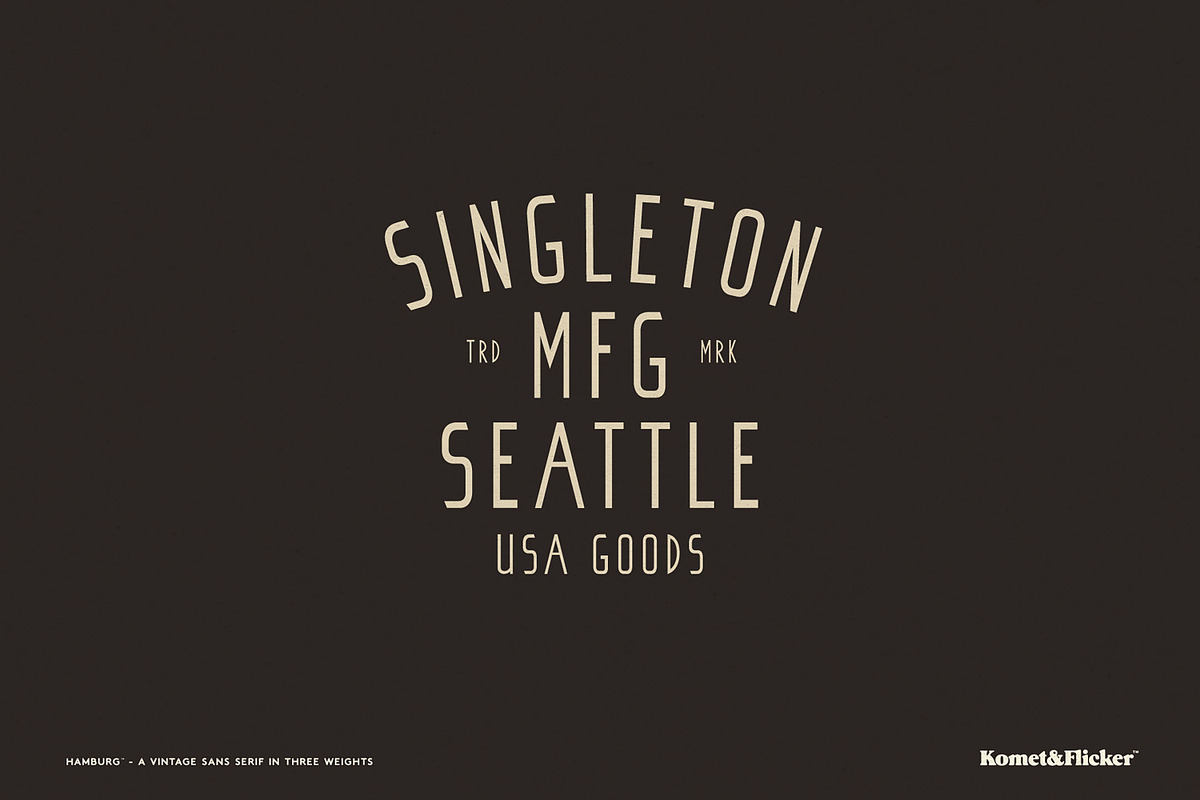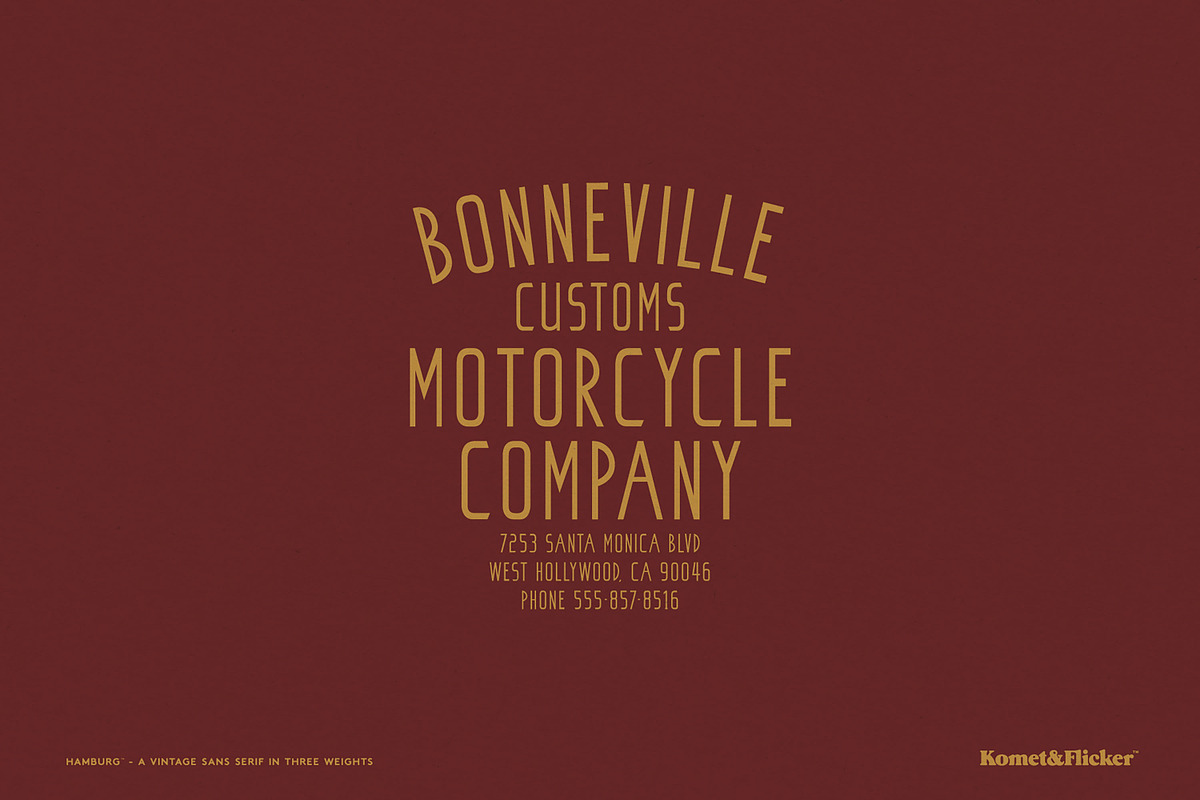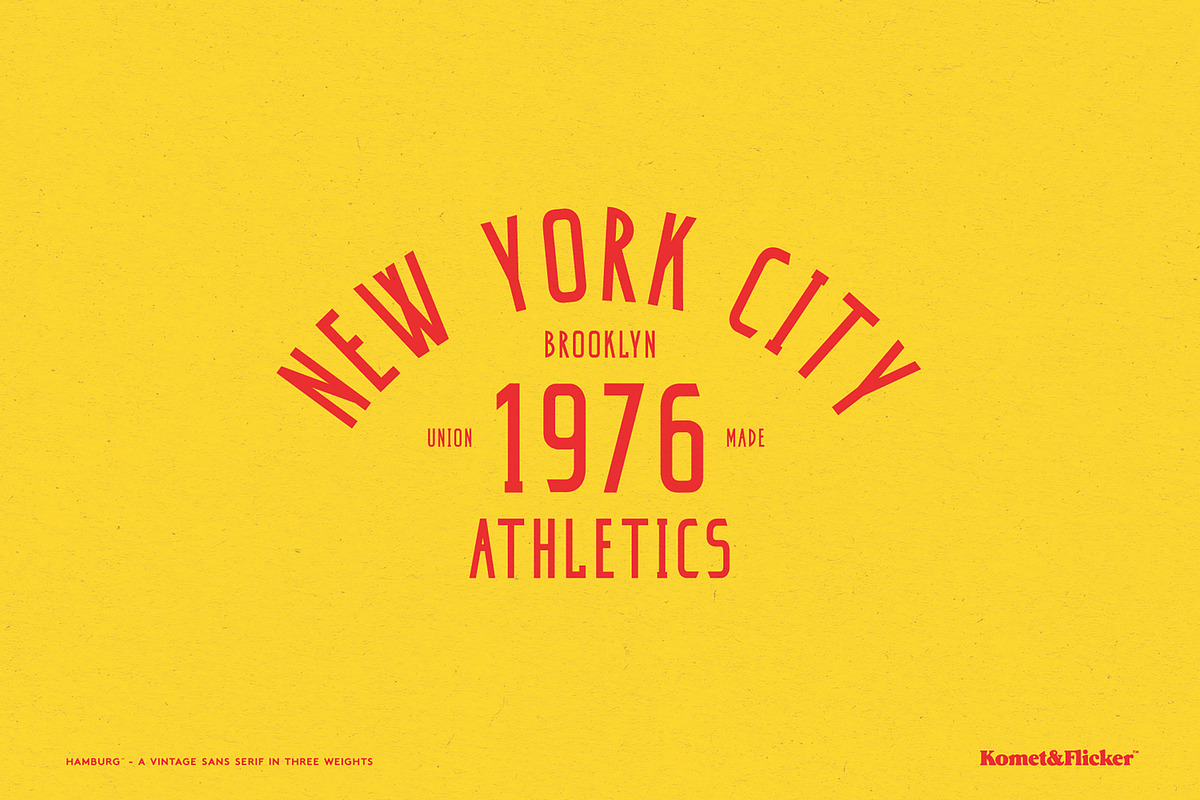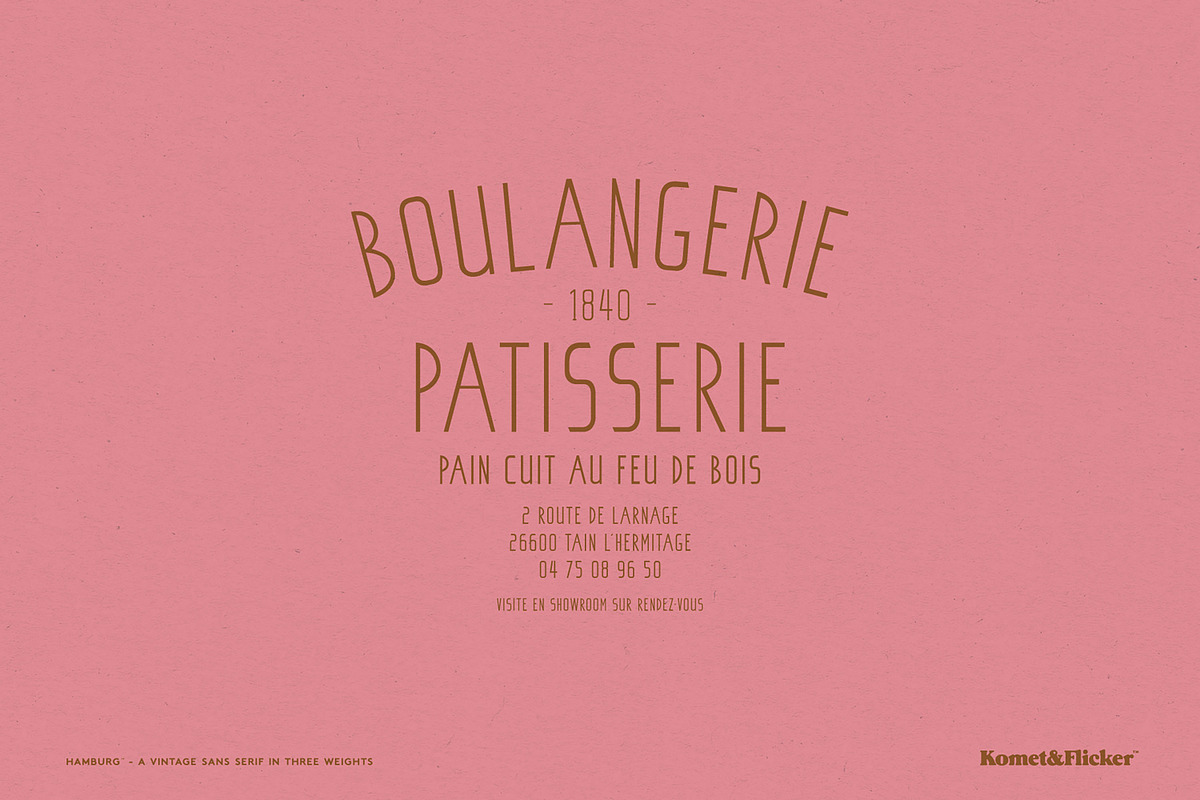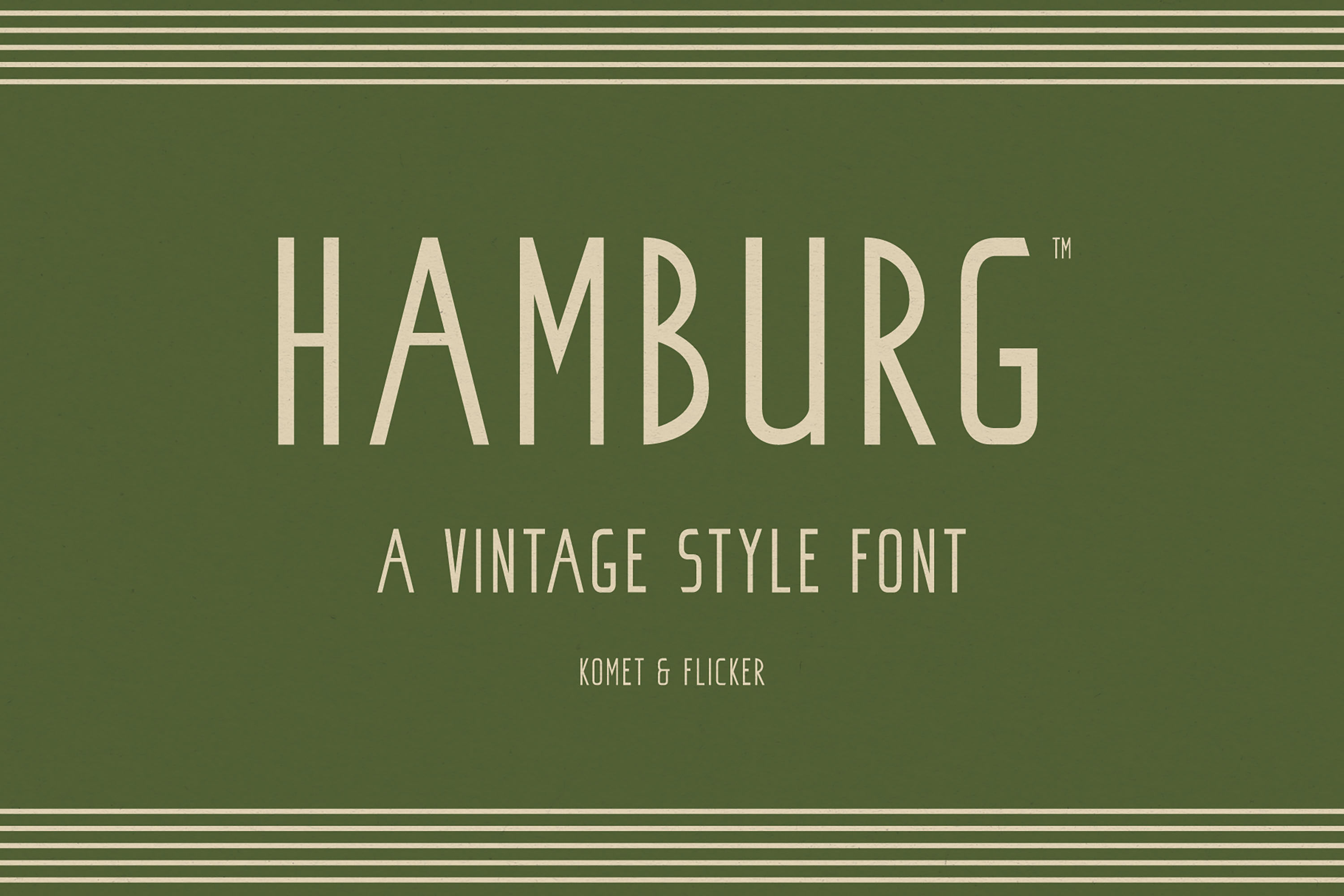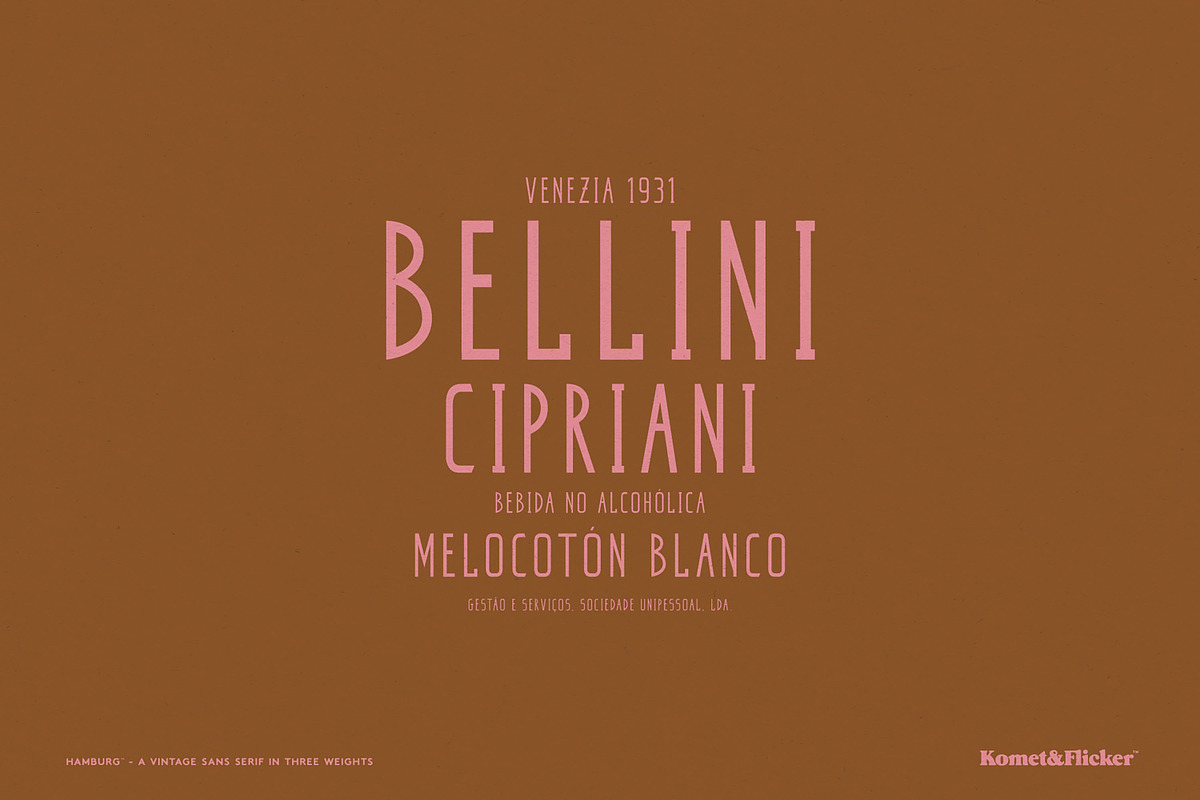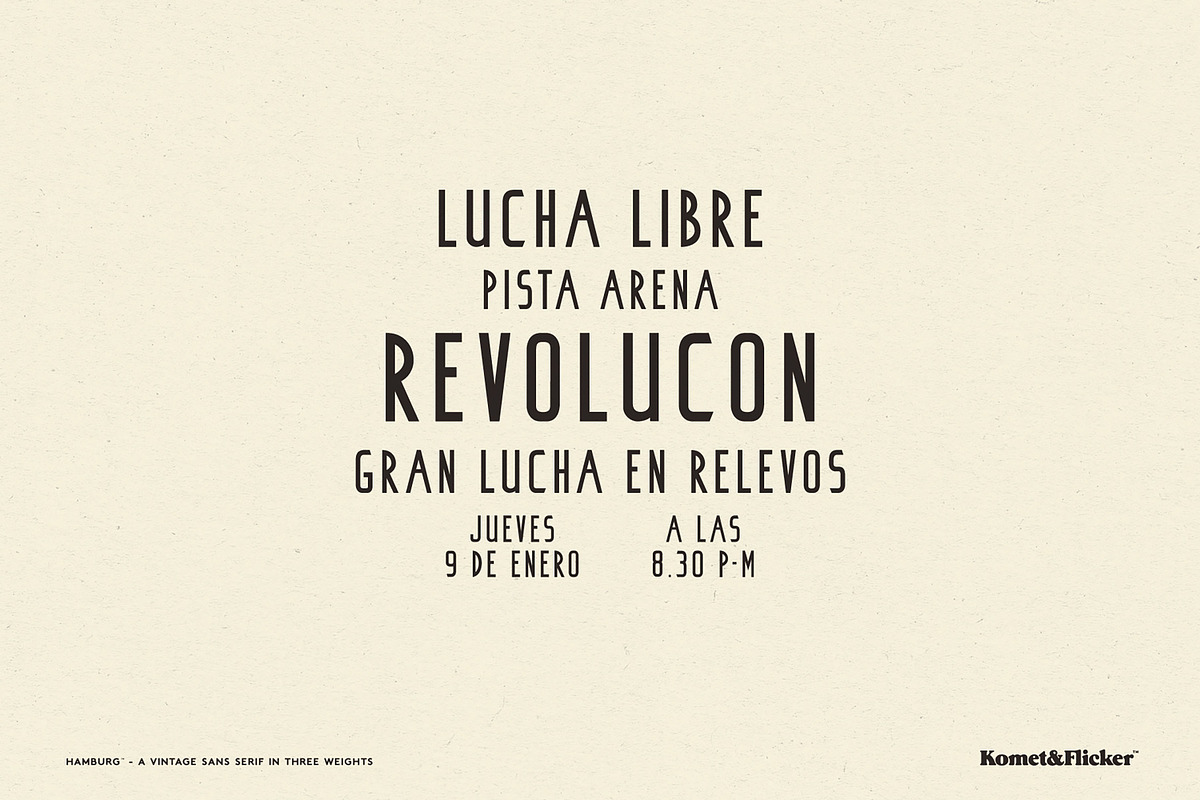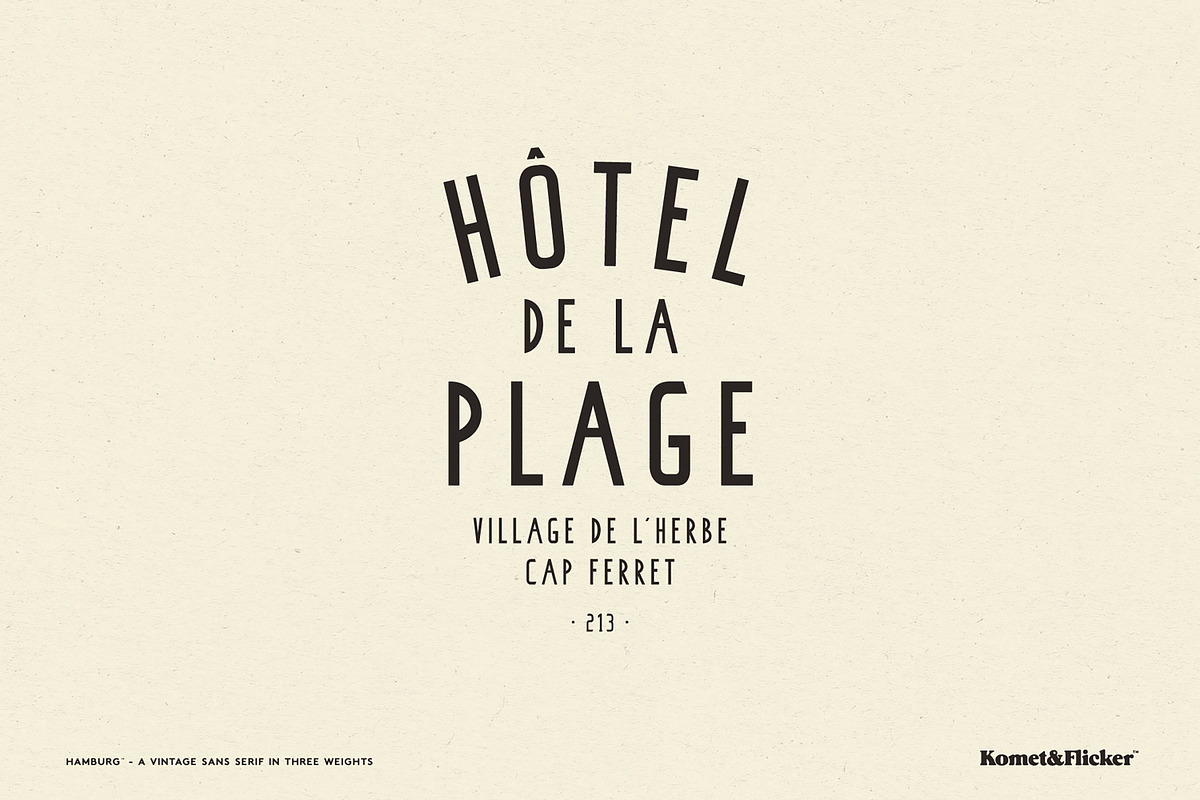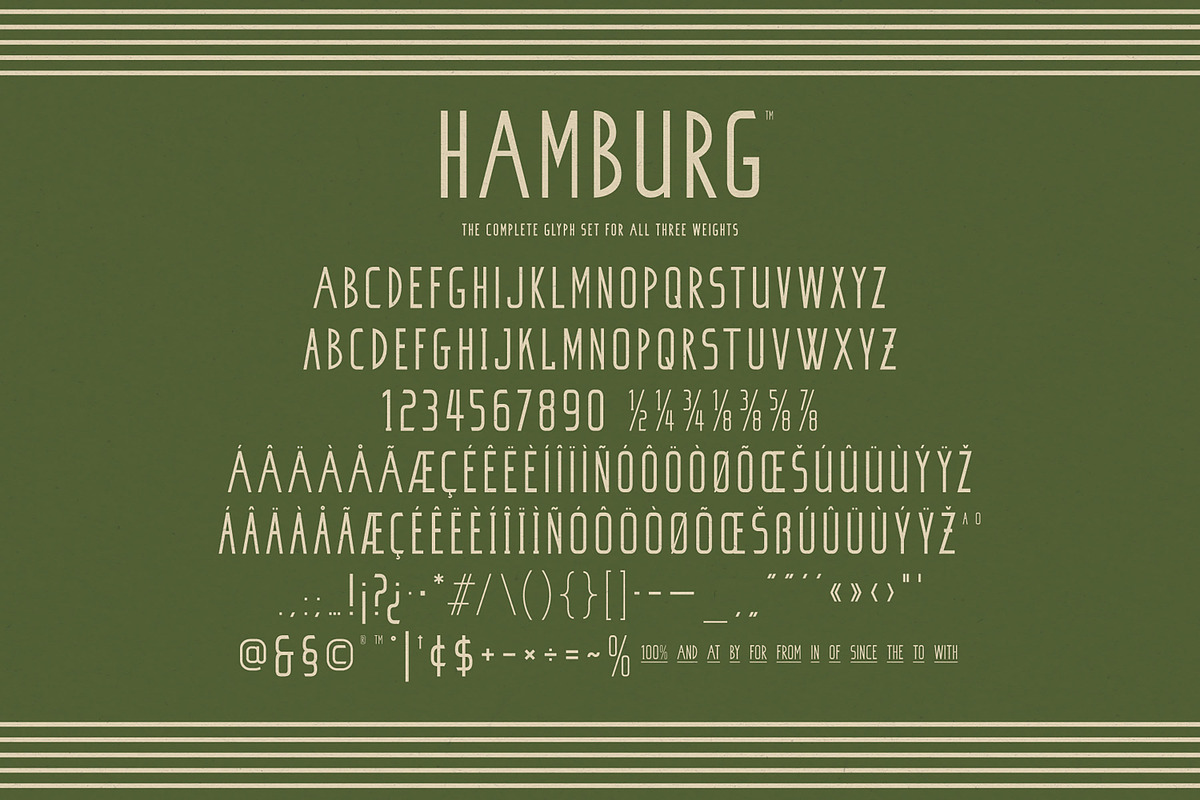
Hamburg - A Vintage Style Font
Hamburg is a vintage-style condensed sans serif font inspired by the art deco typography of the 1920s, 30s, and 40s. Its narrow, hand-drawn letterforms bring the elegance and warmth of that golden era to posters, logos, packaging, and editorial layouts.
Hamburg comes in three weights: Light, Medium, and Bold, giving you the range to build clear hierarchy, from delicate subheads to bold headlines. In addition, the upper and lowercase glyphs are different renders allowing you to mix and match type for a more realistic hand-drawn flow. And to help your type flow naturally, the font also includes 12 connecting words like And, From, and With, ready to drop in for polished, cohesive type lockups.
Full A-Z uppercase basic latin characters in two styles
Select European specific characters
Numbers, punctuation, and select symbols
Pre-made fractions
Set of 12 custom connecting word glyphs